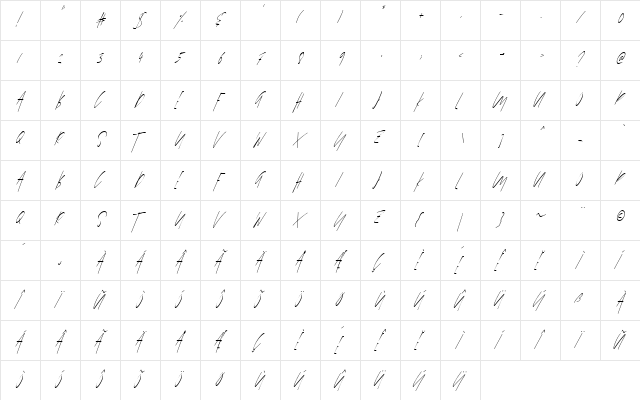
Affinity All Caps Italic Italic
Design Context for Affinity All Caps Italic Typeface
Affinity All Caps Italic is a composed and adaptable typeface that performs quietly and consistently across a wide range of design contexts. The dynamic lean of this cut emphasises speed and emphasis in any layout.
Pro Tip: Try Affinity All Caps Italic for annotation and caption copy alongside an upright companion — the contrast in angle creates a dynamic but ordered typographic system.